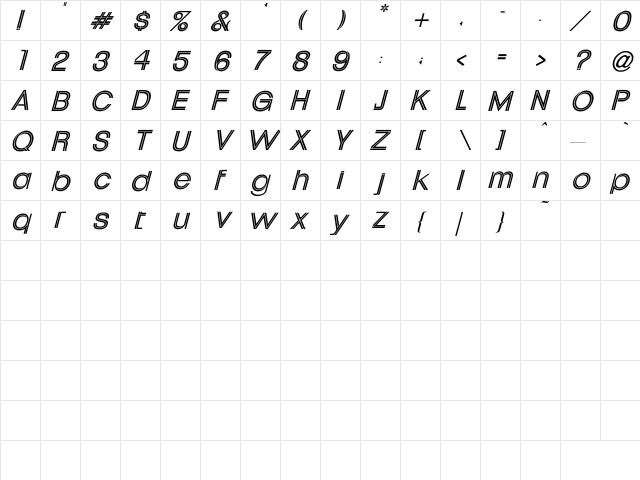
Uptight Italic Regular
Design Context for Uptight Italic Typeface
Uptight Italic offers clean, dependable letterforms without strong stylistic allegiance, making it a practical choice for designers who need flexibility. The dynamic lean of this cut emphasises speed and emphasis in any layout.
Pro Tip: Try Uptight Italic for annotation and caption copy alongside an upright companion — the contrast in angle creates a dynamic but ordered typographic system.